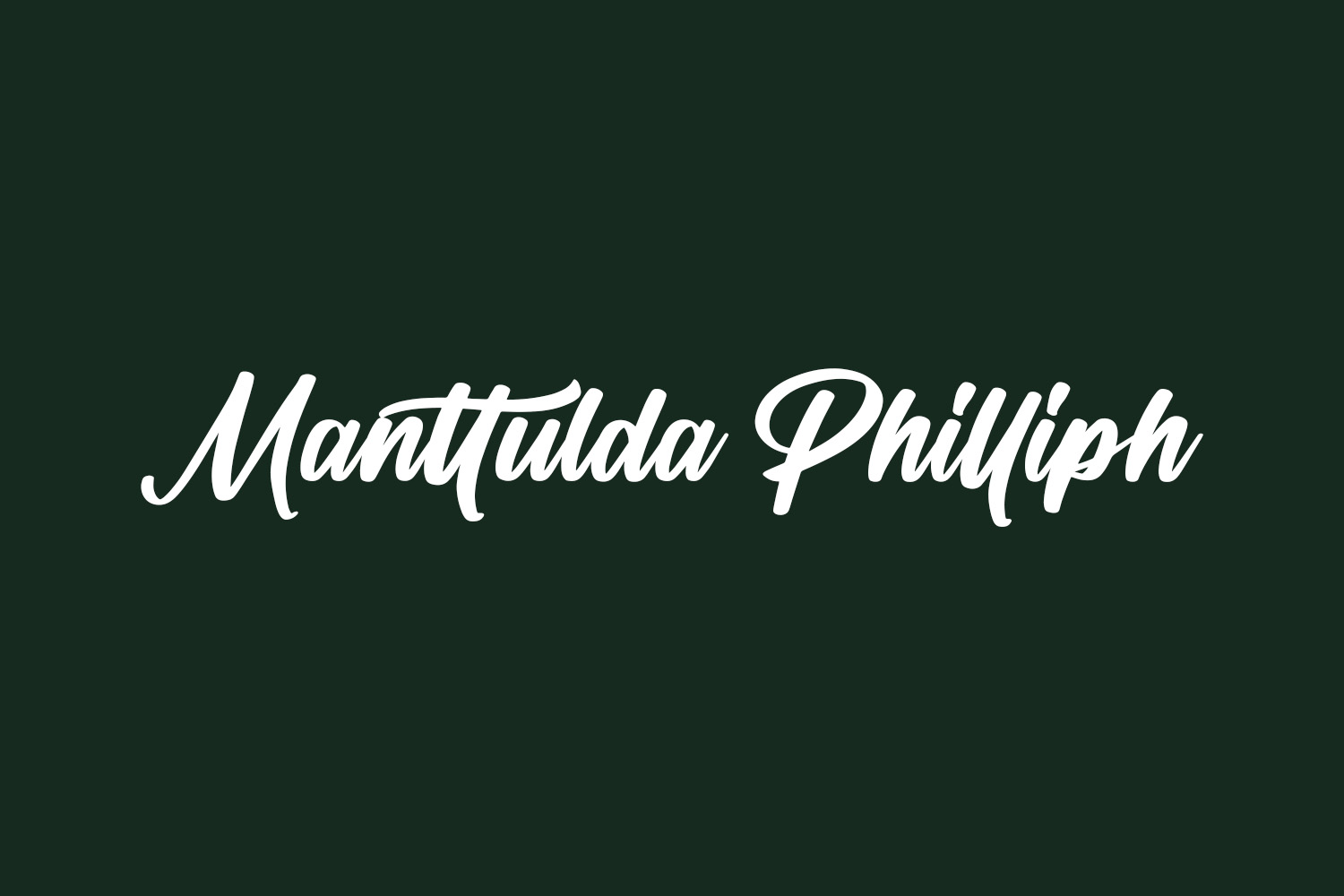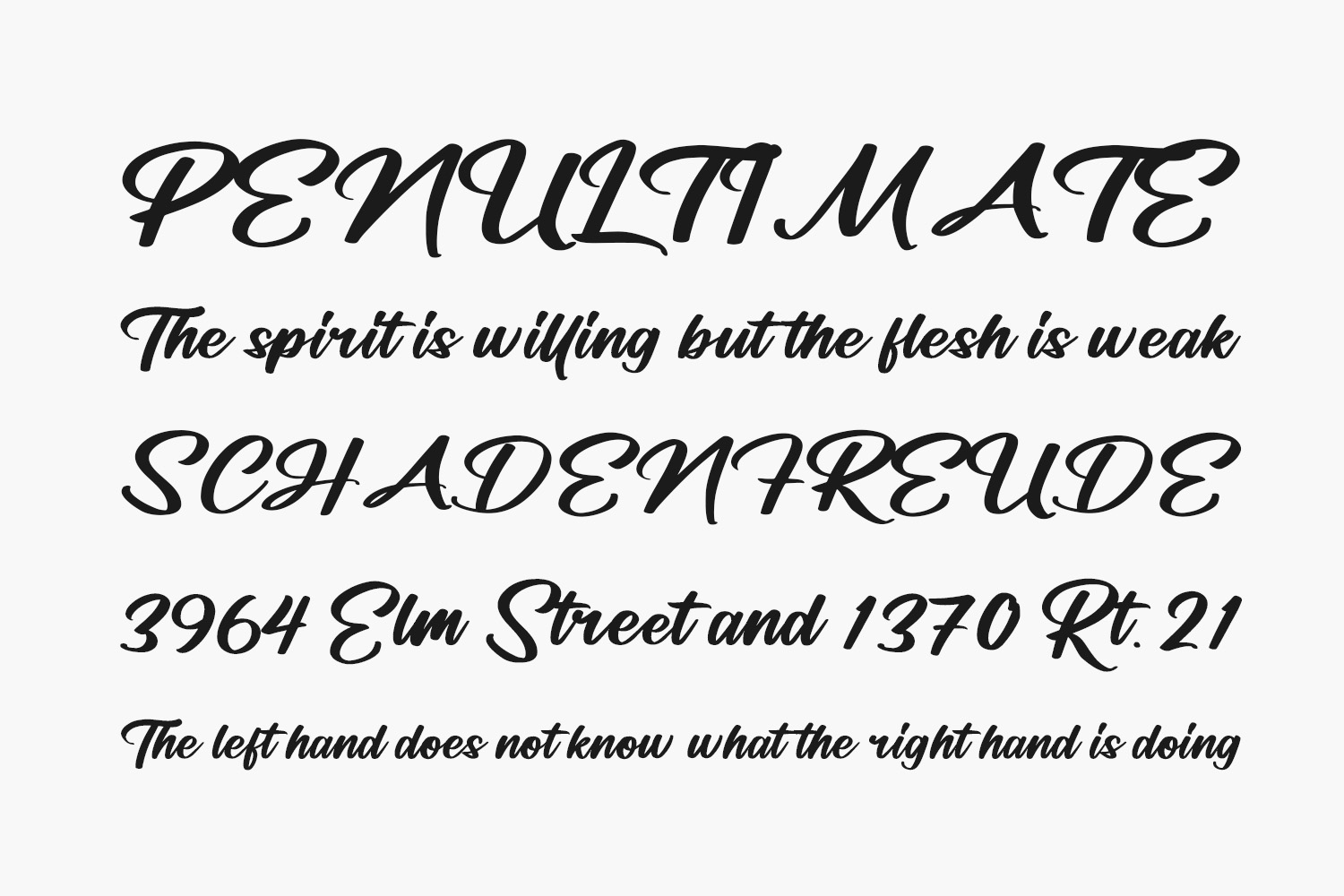
Manttulda Philliph Free Font is a lovely and delicate script font that exudes elegance and class. This font was particularly crafted for those who need a beautiful and refreshing look to their designs. Manttulda Philliph Free Font was designed by Perspectype Studio and is free for personal use only. Please purchase the full version for commercial use.